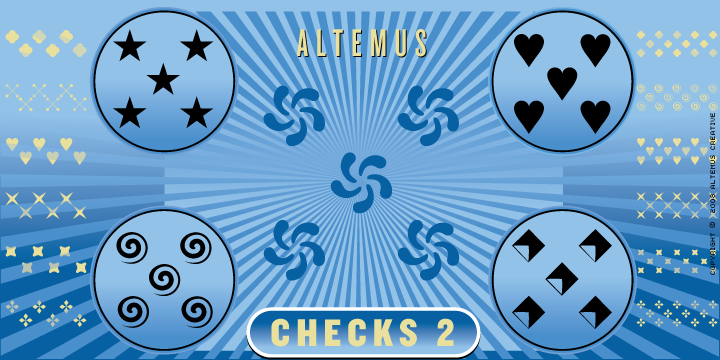
First seen on MyFonts: March 4th, 2003 Altemus Checks TwoThis font contains 174 characters; a variety of slugs that when repeated create checkerboard patterns, the font includes both double pattern and triple pattern checks as well as triple repeat pattern rules. All characters have companion corners and side pieces for creating full borders. Not quite what you’re looking for? Try looking at more fonts like this. |